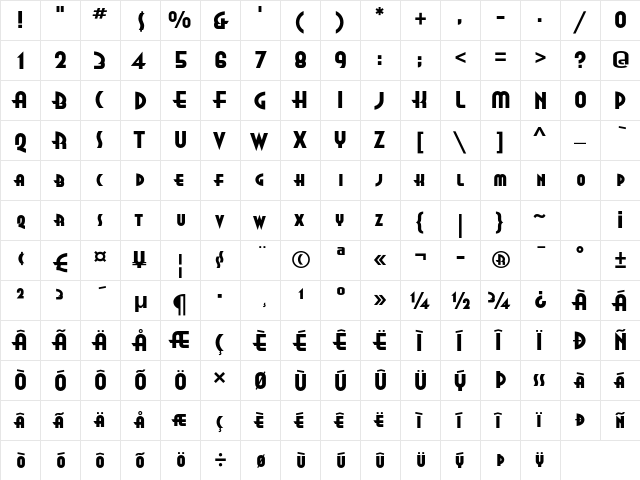
Anna Extended ITC Std Regular
| Designer | Daniel Pelavin |
Design Context for Anna Extended ITC Std Typeface
Anna Extended ITC Std is a composed and adaptable typeface that performs quietly and consistently across a wide range of design contexts.
Pro Tip: Use Anna Extended ITC Std in both headline and body roles to test its range before committing to a single application.